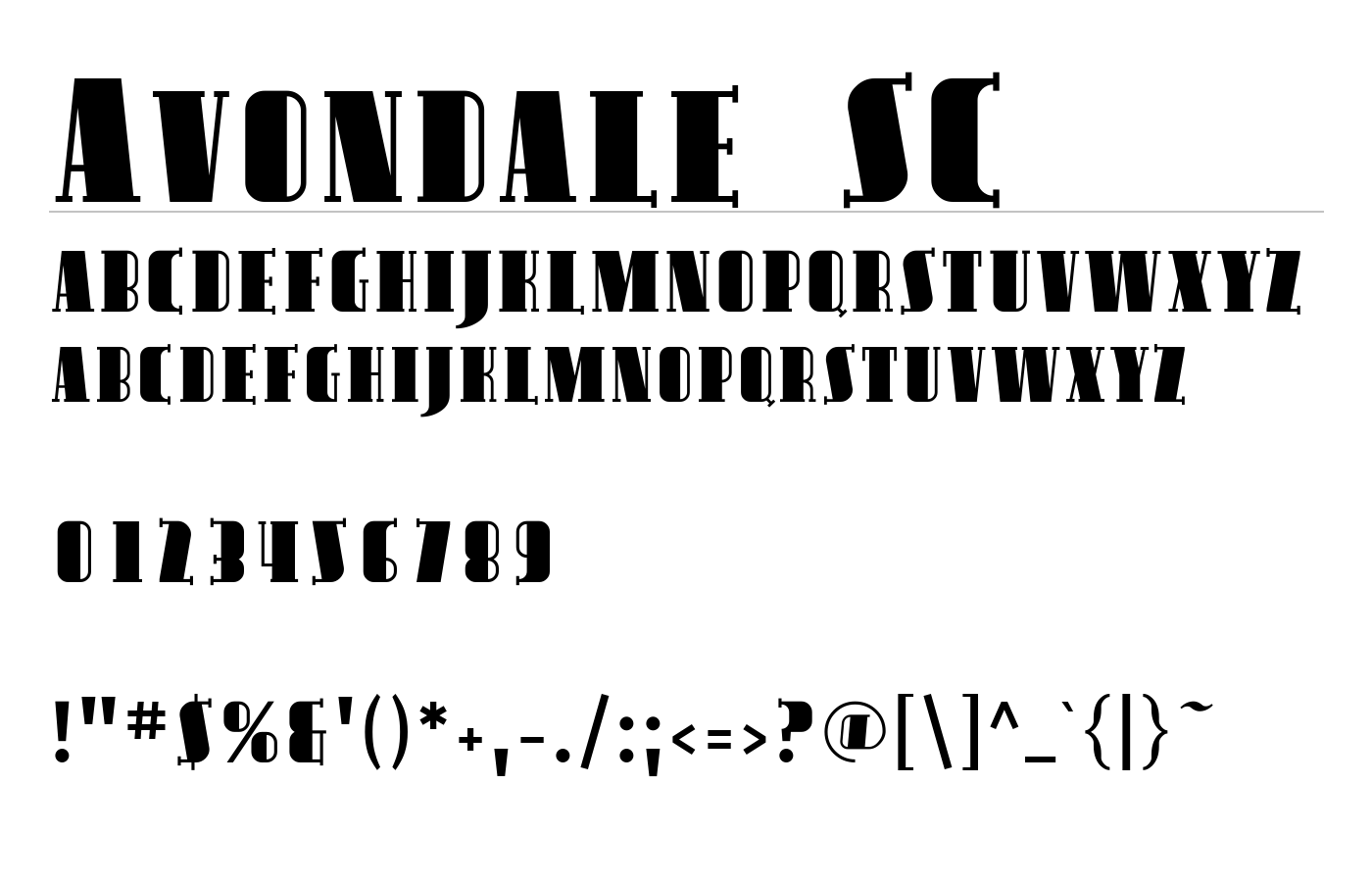
Avondale SC is a bold, condensed serif font with a striking vintage Western feel, characterized by its high contrast between thick and thin strokes and sharp, bracketed serifs. Its uppercase-only design and strong vertical emphasis make it ideal for creating impactful headlines and logos that convey a rugged, classic, and authoritative mood. This font works best in branding, posters, and editorial projects that want to evoke a sense of tradition and bold style.
Avondale SC Font
About Avondale SC Font